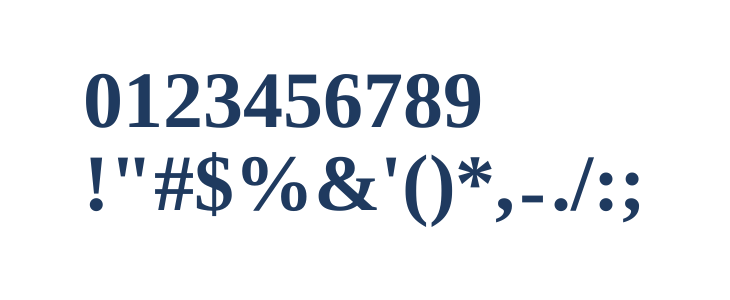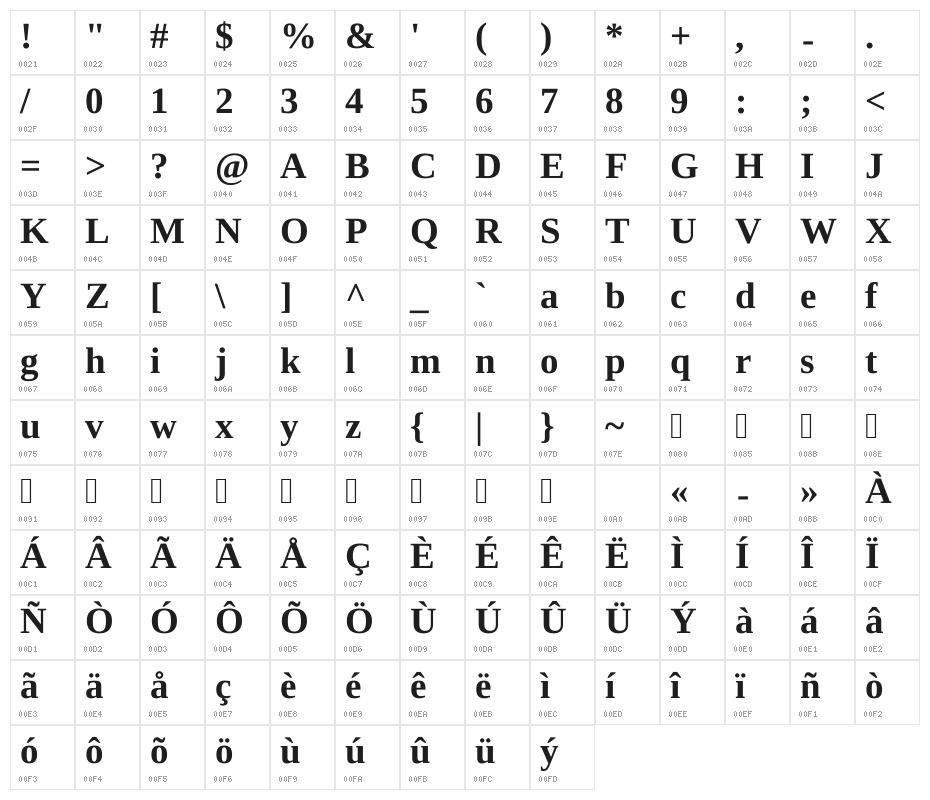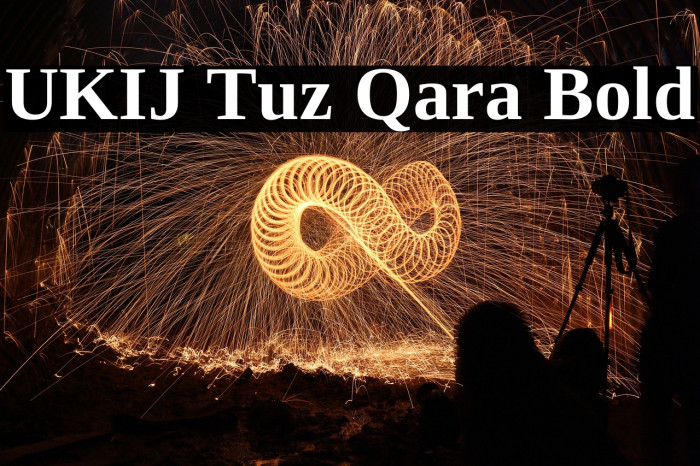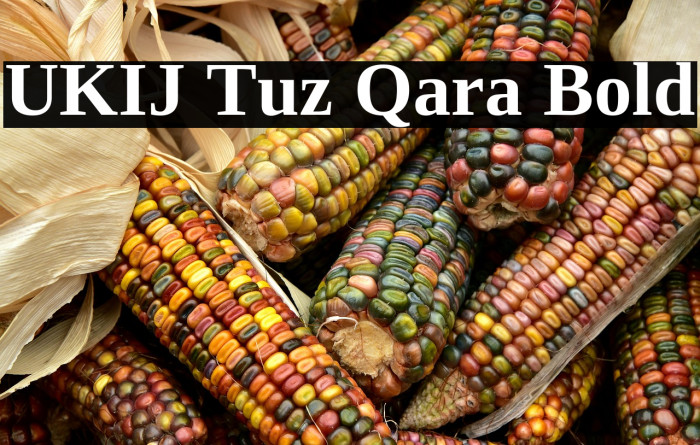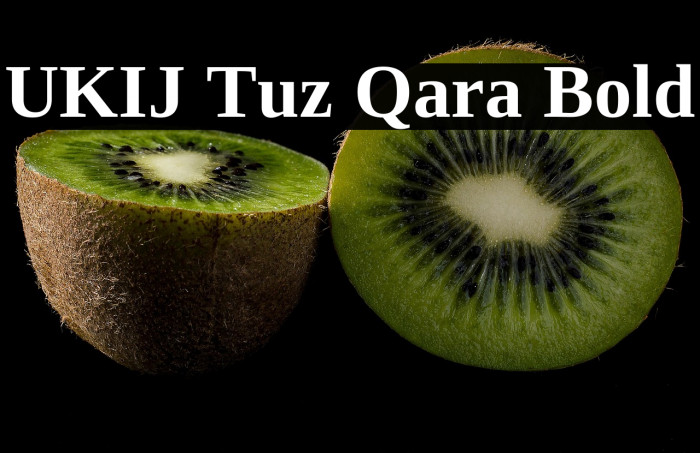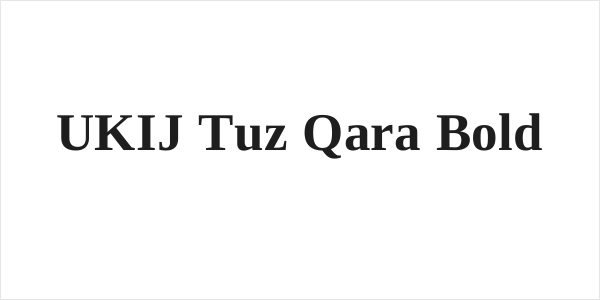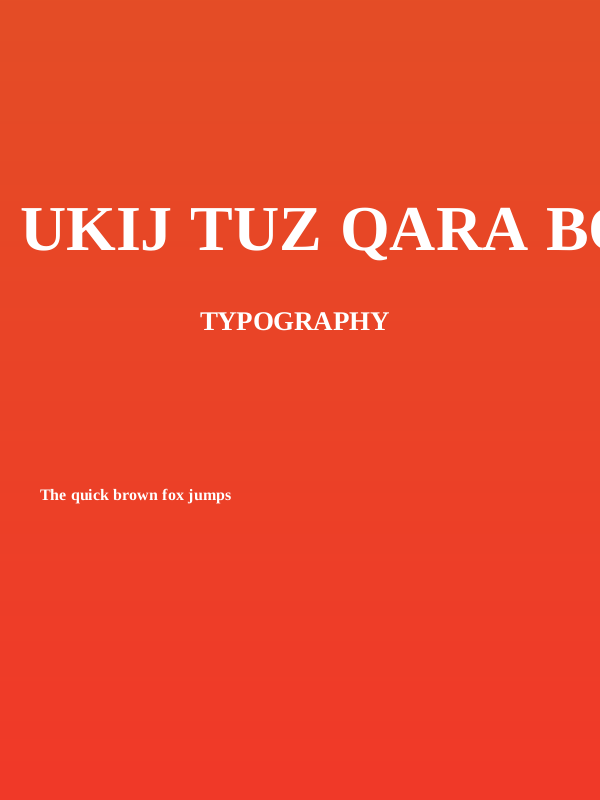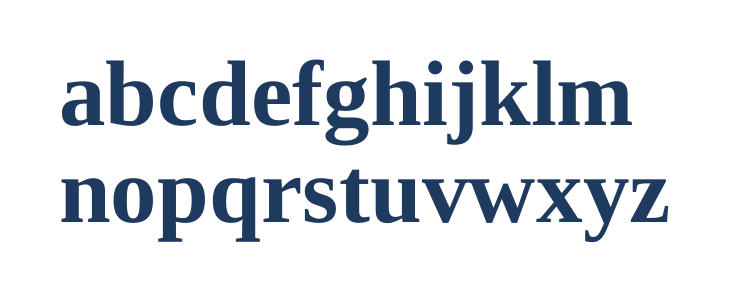
UKIJ Tuz Qara Bold Font
UKIJ Tuz Qara Bold Description
This font is a bold serif typeface characterized by its strong, authoritative presence. The letters are well-defined with a classic serif structure, providing a sense of tradition and reliability. The uppercase letters are tall and commanding, while the lowercase letters maintain a consistent height, ensuring readability. The numerals are robust and clear, making them suitable for various applications. Special characters are distinct and harmonize well with the overall design. The font's bold weight and traditional style make it ideal for projects that require a formal and impactful appearance.
| Use Case | Headlines, Branding, Formal Documents |
| Proposed Projects | Ideal for book covers, formal invitations, headlines, and branding materials that require a traditional and strong presence. |